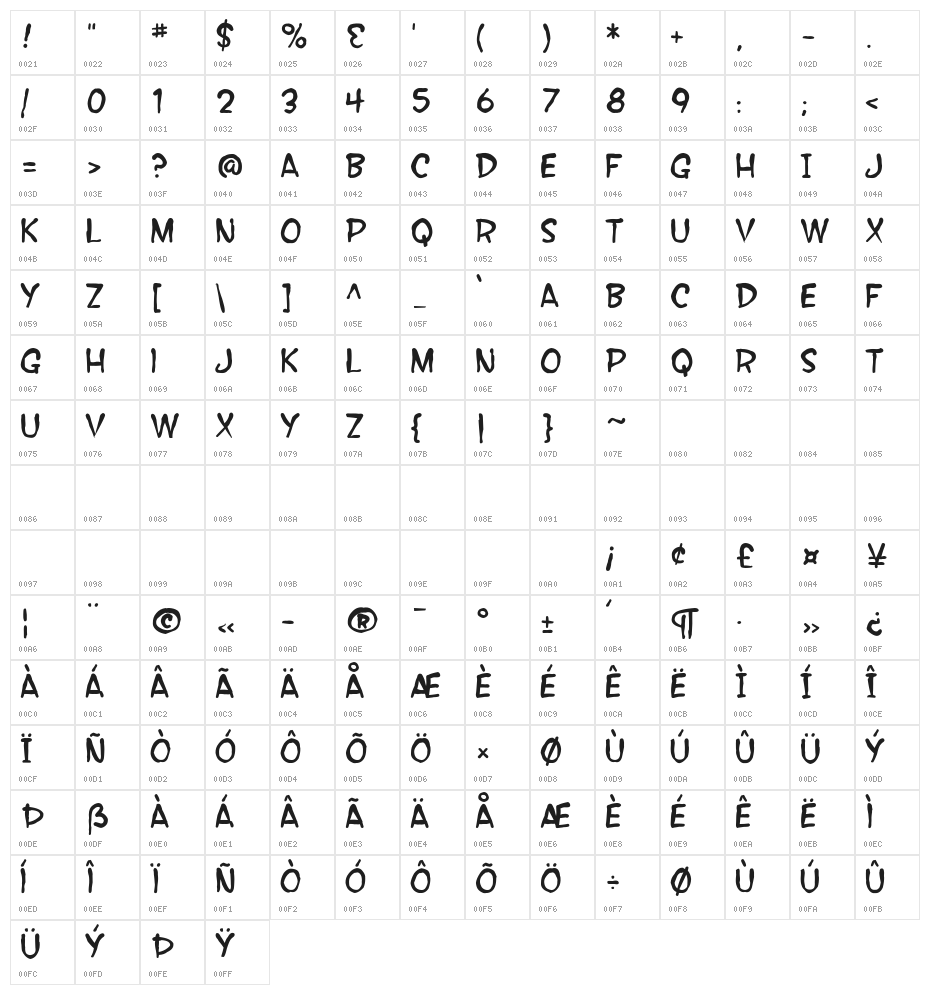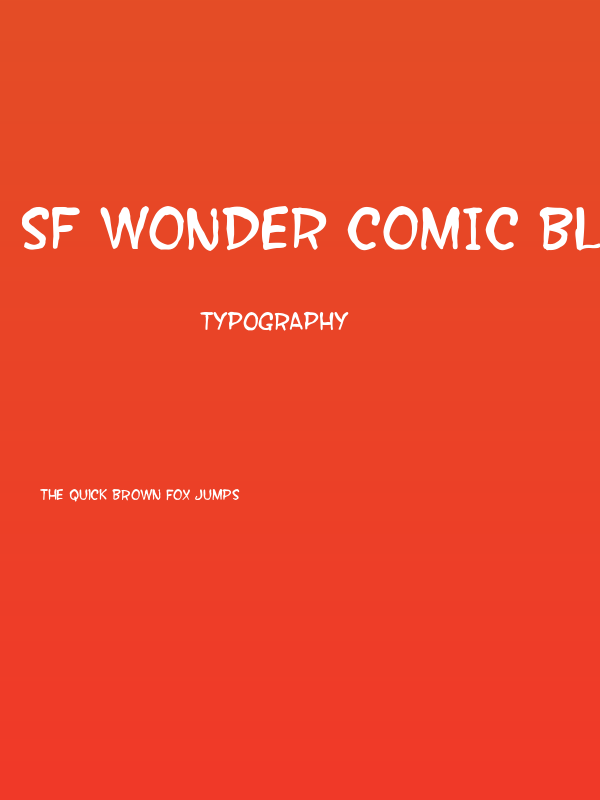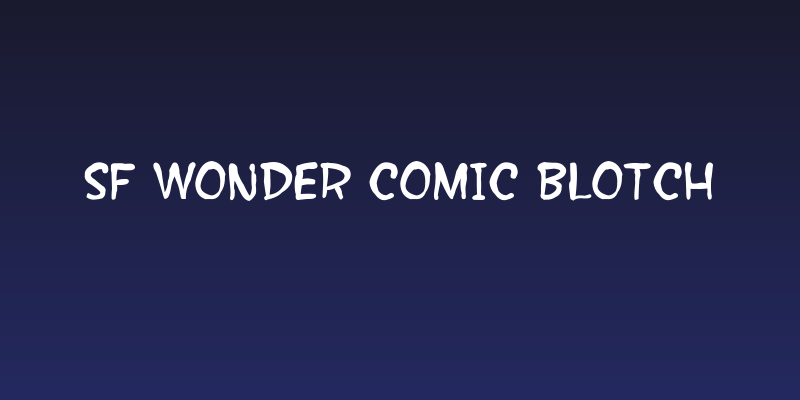
SF Wonder Comic Blotch Font
SF Wonder Comic Blotch Description
This font exudes a playful and energetic vibe, characterized by its bold and irregular strokes that mimic a hand-drawn style. The letters have a slightly uneven baseline, adding to the whimsical and casual appearance. Each character is distinct, with varying stroke thickness that gives a dynamic and lively feel. The overall look is reminiscent of comic book lettering, making it ideal for projects that require a fun and informal touch. The numbers and special characters maintain the same lively style, ensuring consistency across all text elements.
| Overall Style | Playful, Comic |
| Proposed Projects | Ideal for comic books, children's books, playful branding, posters, and informal invitations. |